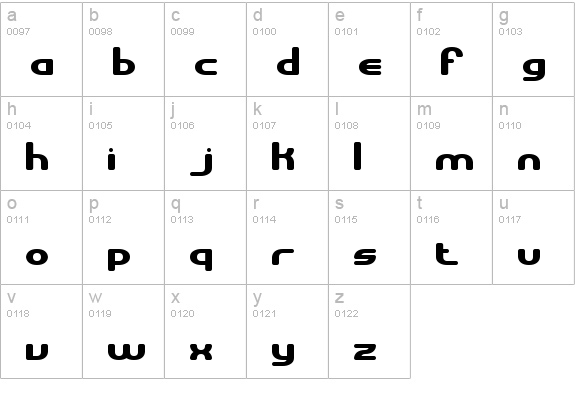
Gravitate BRK Font Details
Gravitate BRK font is a versatile and modern typeface that effortlessly combines sleek lines with a touch of edginess. With its bold yet elegant design, this font is perfect for making a statement in any project. Whether you're designing a logo, creating a poster, or crafting a website, Gravitate BRK font will add a unique and contemporary flair to your work. The best part? Gravitate BRK font is completely free to download at FontsMarket.com. This means you can access this eye-catching font without any cost, making it an accessible option for designers of all levels. Don't miss out on the opportunity to enhance your designs with the striking and dynamic Gravitate BRK font – download it today and elevate your creative projects to new heights.